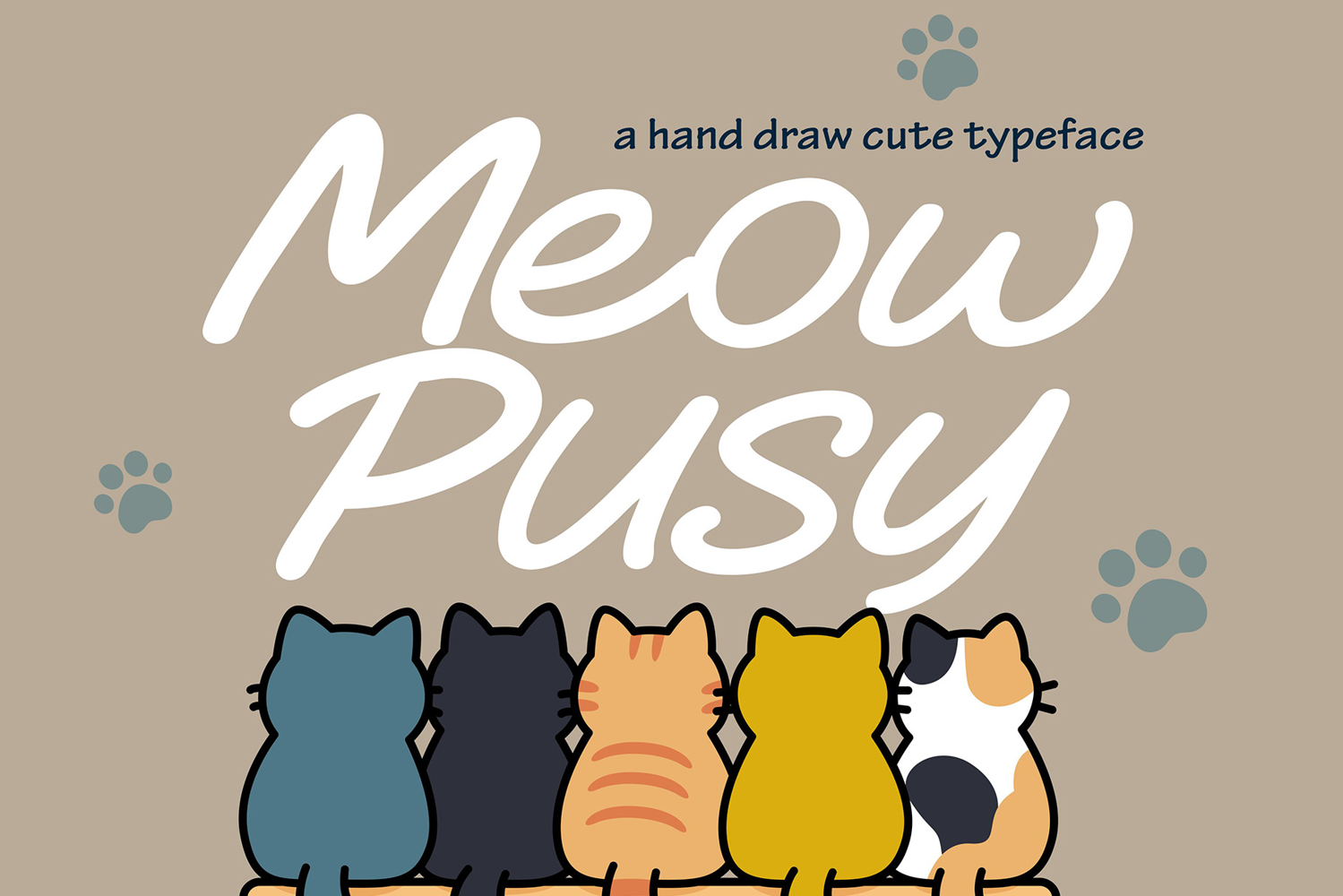
Meow Pusy | Hand Drawn Cute Script Font
Meow pusy
Introducing Meow Pusy, a delightful hand-drawn script font inspired by the playful and charming personality of cats. This cute typeface features smooth, casual strokes that bring an irresistibly friendly and warm touch to your creative projects. Meow Pusy is perfect for children’s designs, pet-themed branding, stationery, greeting cards, T-shirt designs, product packaging, and anything that needs a touch of cute and fun. The natural flow and rounded edges make this font highly legible and inviting for both print and digital use.
Its playful nature makes it ideal for DIY crafters, illustrators, and designers who want to evoke emotions of joy, comfort, and creativity. Whether you're working on a blog title, Instagram post, or a nursery book — Meow Pusy is the purr-fect choice to make your words come alive with personality.